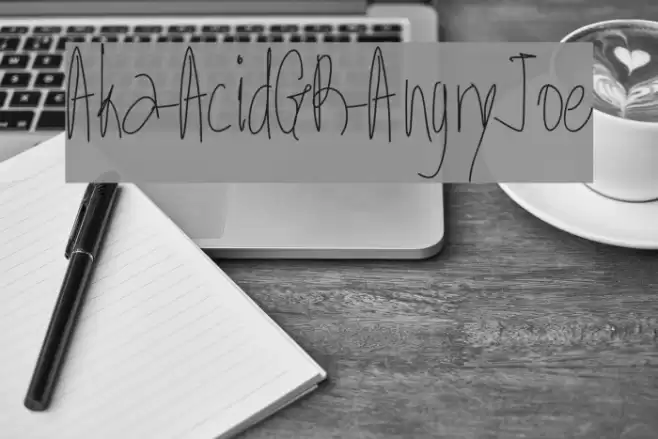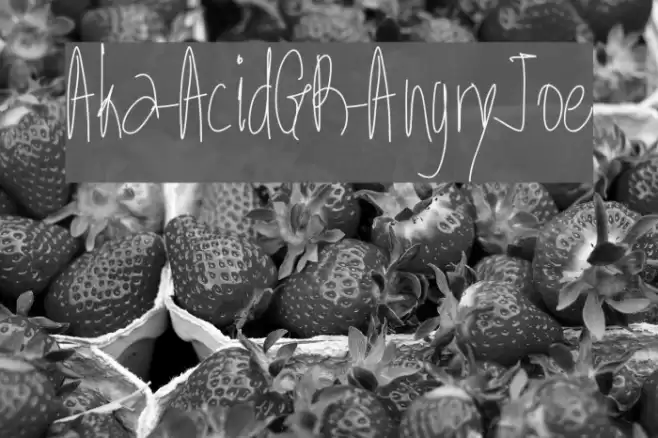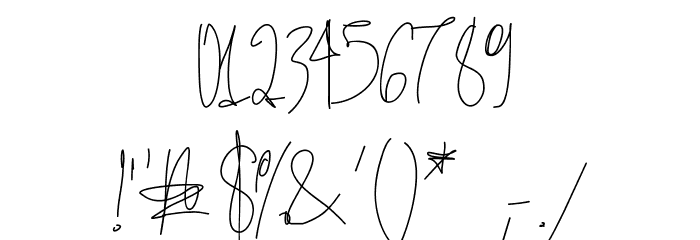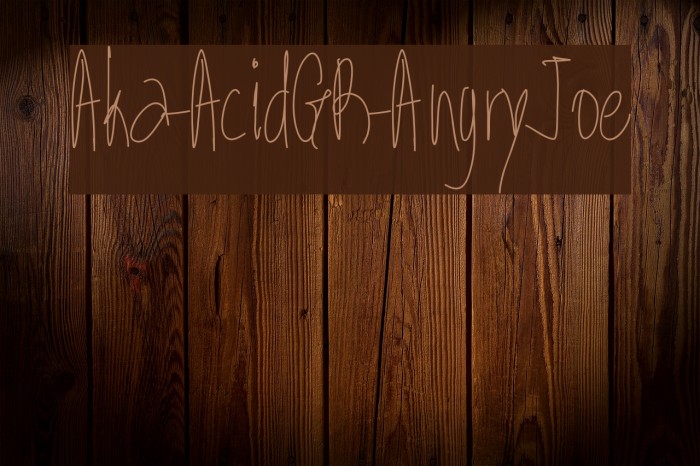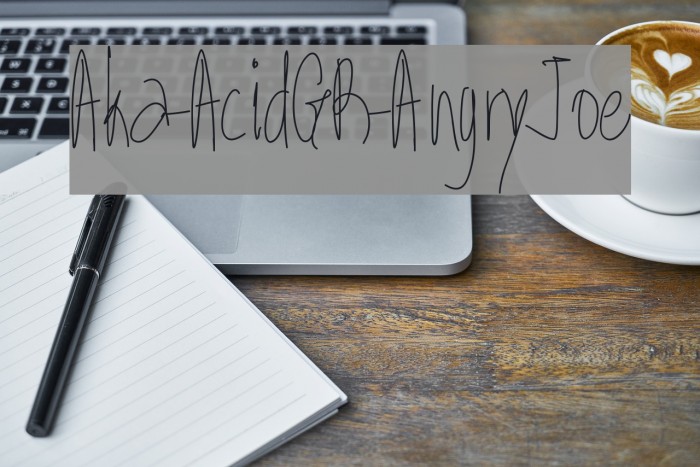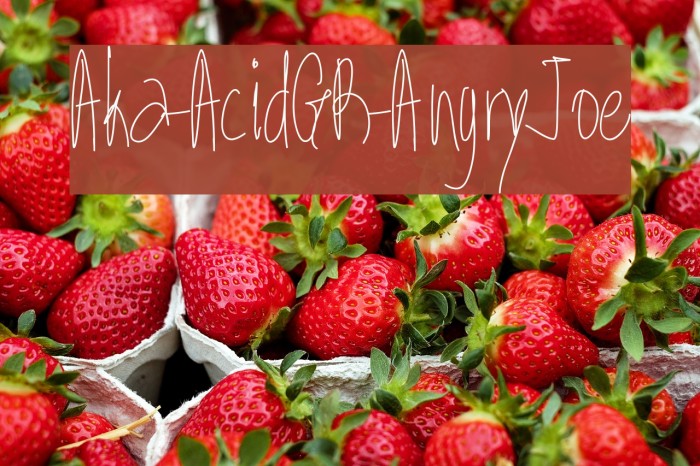
Aka-AcidGR-AngryJoe Font
Aka-AcidGR-AngryJoe Description
This font features a highly expressive and erratic handwritten style, characterized by its irregular and spontaneous strokes. Each letter appears to be drawn with a quick, fluid motion, giving it a raw and energetic feel. The uppercase and lowercase letters maintain a consistent height, but vary significantly in width and angle, adding to the chaotic aesthetic. The numbers and special characters follow the same dynamic style, with exaggerated curves and angles. This font captures a sense of urgency and emotion, making it stand out with its unique personality.
A chaotic and expressive handwritten font with irregular strokes from Uncategorized fonts.
- Proposed Projects: Ideal for projects that require a personal touch, such as greeting cards, artistic posters, or album covers. It can also be used in branding for edgy or alternative products.
- Character Spacing: Wide
- Use Case: Logos, Artistic projects, Informal communications